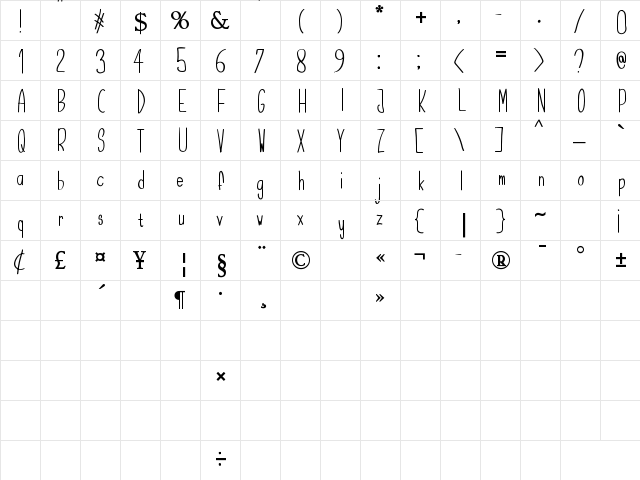
SeaAfternoon Regular
| Foundry | Rafhil |
| Designer | Raafi Hilmi |
Design Context for SeaAfternoon Typeface
SeaAfternoon takes a measured approach to typography — its balanced proportions and neutral character make it a reliable workhorse for both digital and print work.